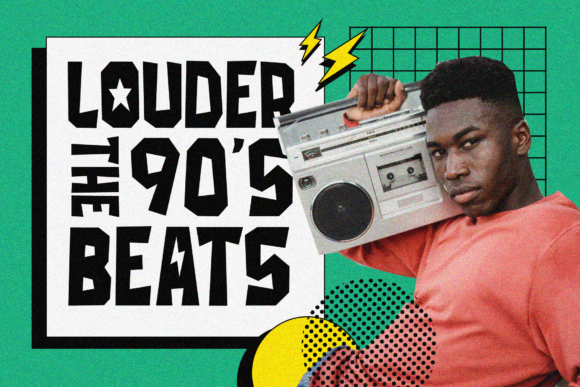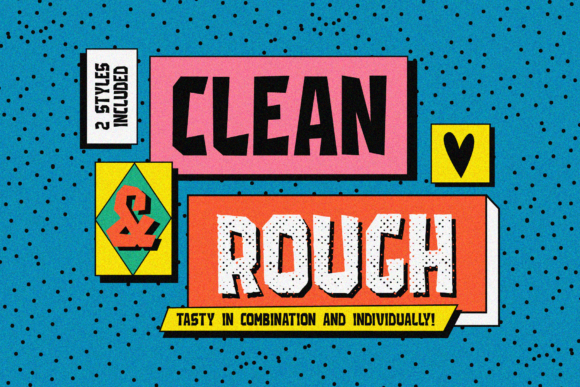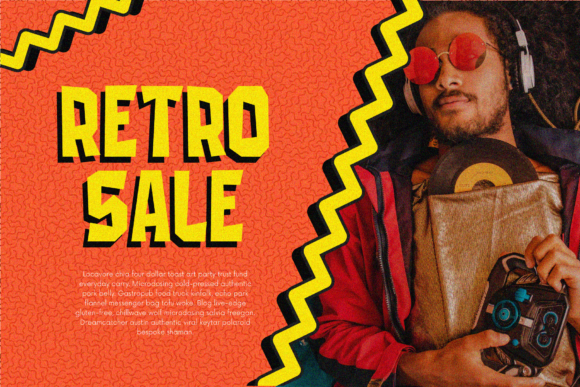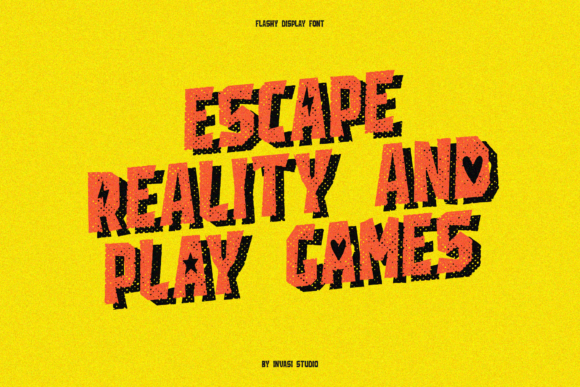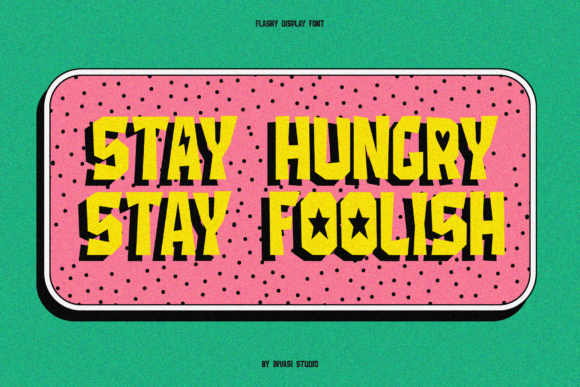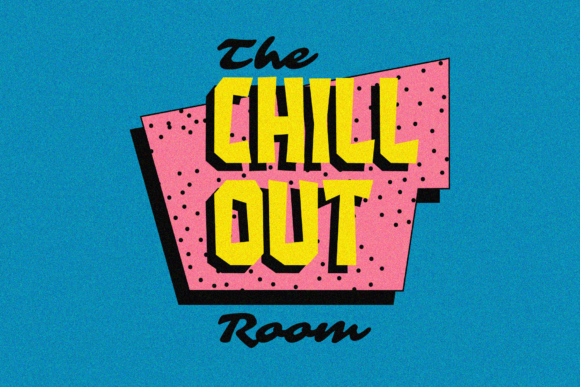
Introducing Flashy Font: The Fun Retro Display Font That Adds a Pop of Personality to Your Designs
Are you tired of using the same old fonts in your designs? Do you want to add a touch of personality and whimsy to your creative projects? Look no further than Flashy Font, a fun and retro display font that’s sure to make your designs stand out. With its modern and quirky characters, Flashy Font is the perfect addition to any design project that needs a bit of flair.
What is Flashy Font?
Flashy Font is a unique and eye-catching display font that’s inspired by the fun and playful typography of the past. Its modern and quirky characters are designed to add a touch of personality to any design project, from posters and flyers to social media graphics and craft projects. Whether you’re a designer, crafter, or DIY enthusiast, Flashy Font is the perfect way to add a bit of whimsy and fun to your creations.
Key Features of Flashy Font
- Modern and Quirky Characters: Flashy Font features a set of modern and quirky characters that are sure to add a touch of personality to your designs.
- Retro-Inspired: Flashy Font is inspired by the fun and playful typography of the past, making it perfect for designers and crafters who love vintage styles.
- Highly Versatile: Flashy Font can be used in a wide range of design projects, from posters and flyers to social media graphics and craft projects.